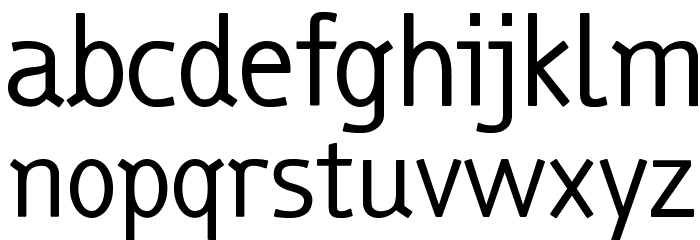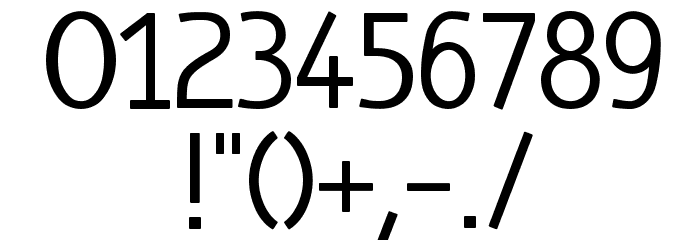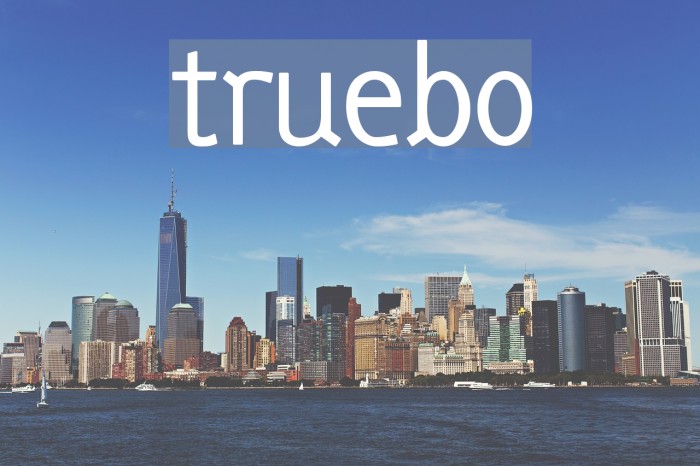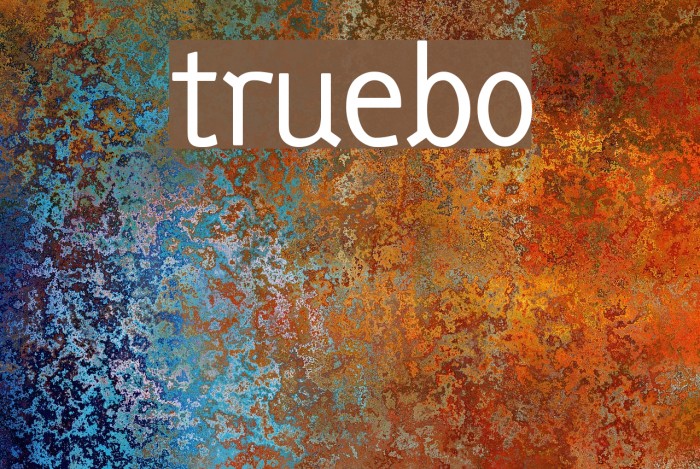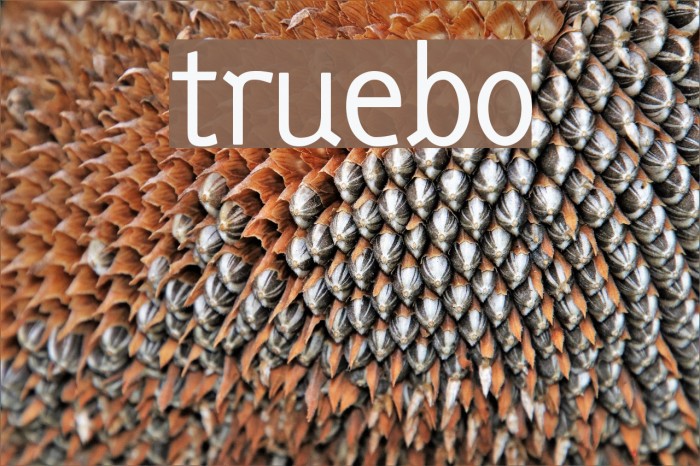
truebo Font
This font features a clean and modern sans-serif design, characterized by its geometric shapes and uniform stroke widths. The uppercase letters are tall and slightly condensed, giving a sleek and professional appearance. The lowercase letters maintain a consistent height, contributing to the font's readability. The numerals are clear and distinct, with a balanced proportion that complements the alphabetic characters. Special characters are well-integrated, maintaining the overall aesthetic. This font is versatile, suitable for both digital and print media, and can be used in various design contexts.
A modern sans-serif font with geometric shapes and uniform strokes.